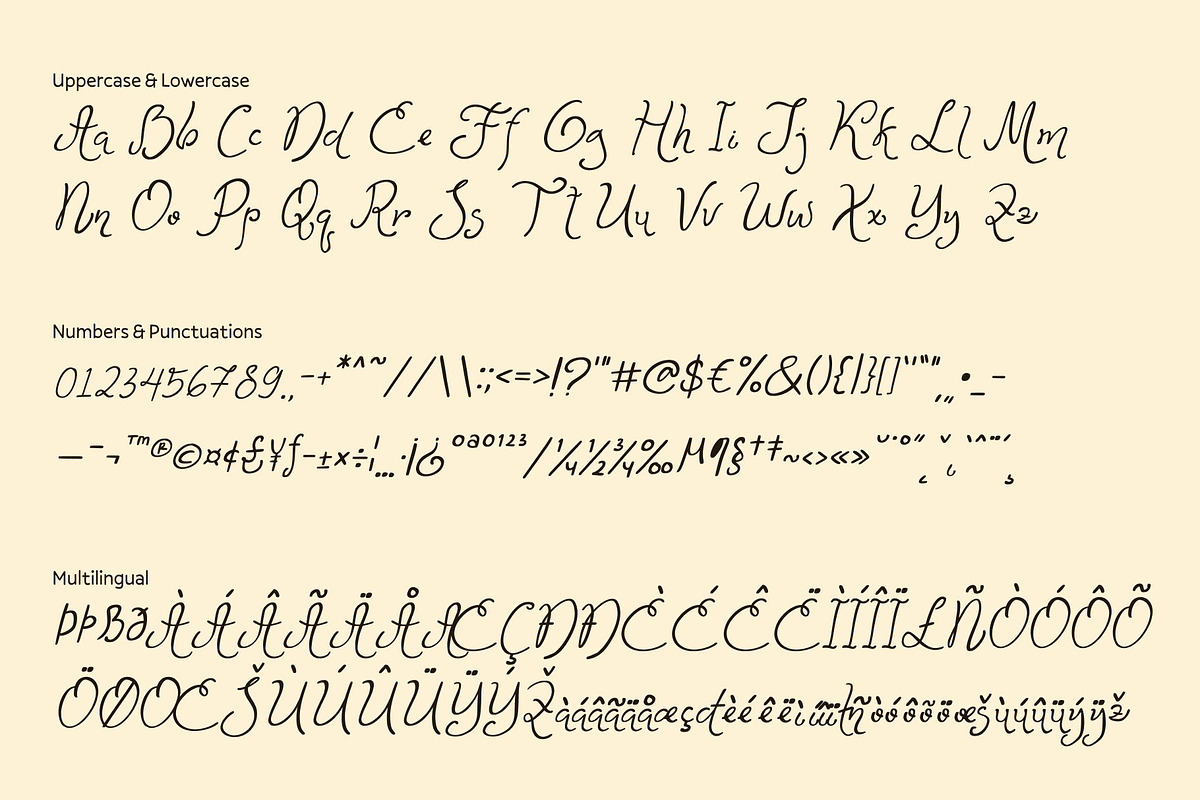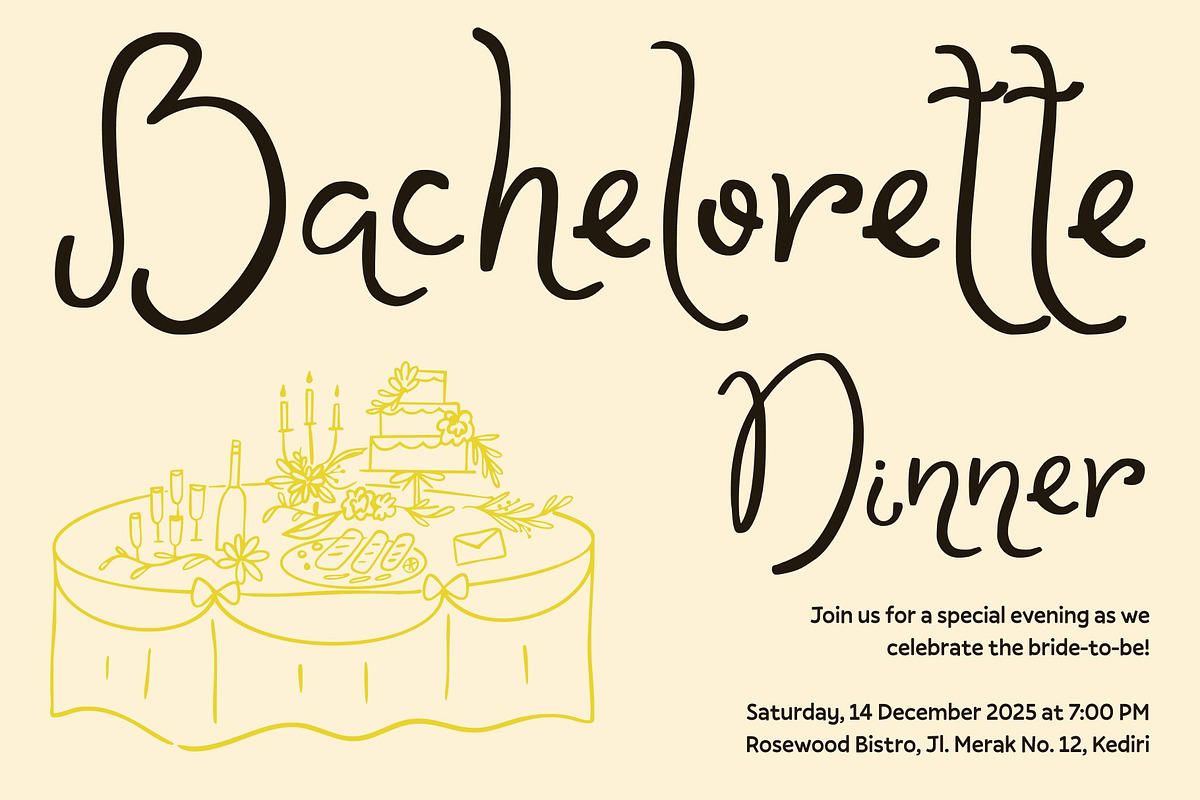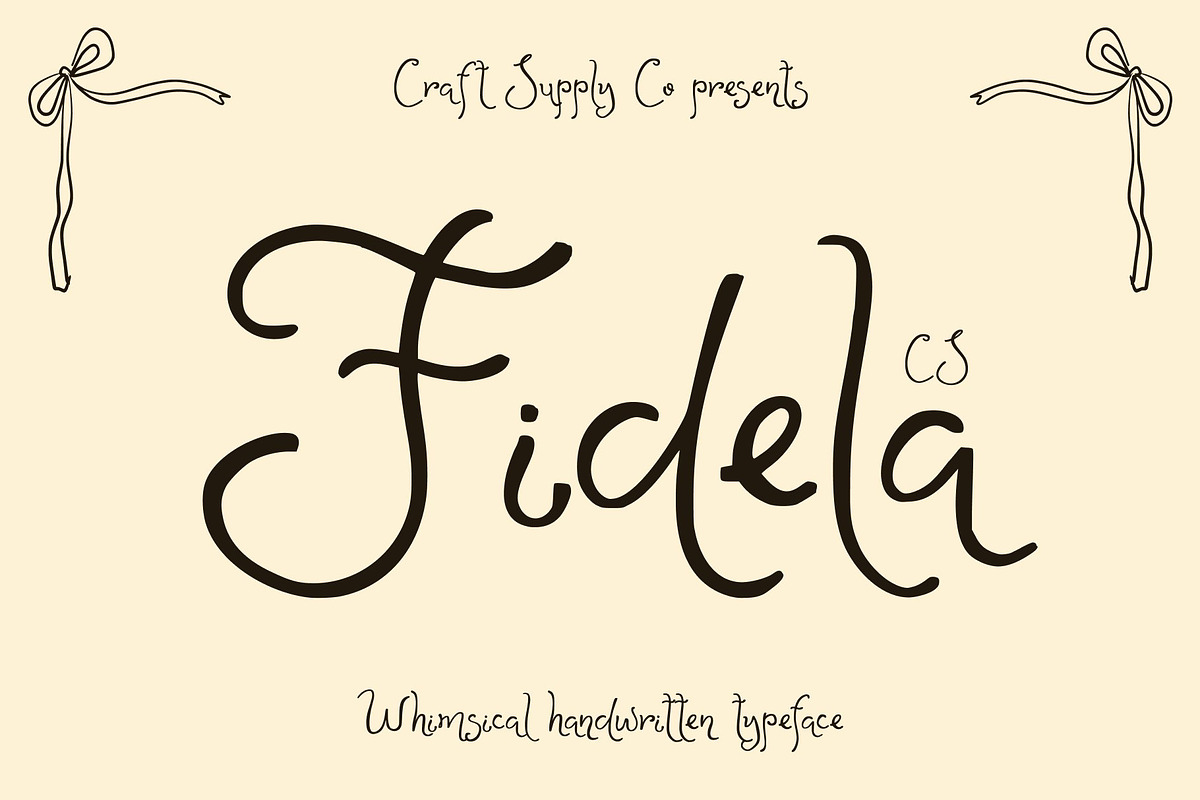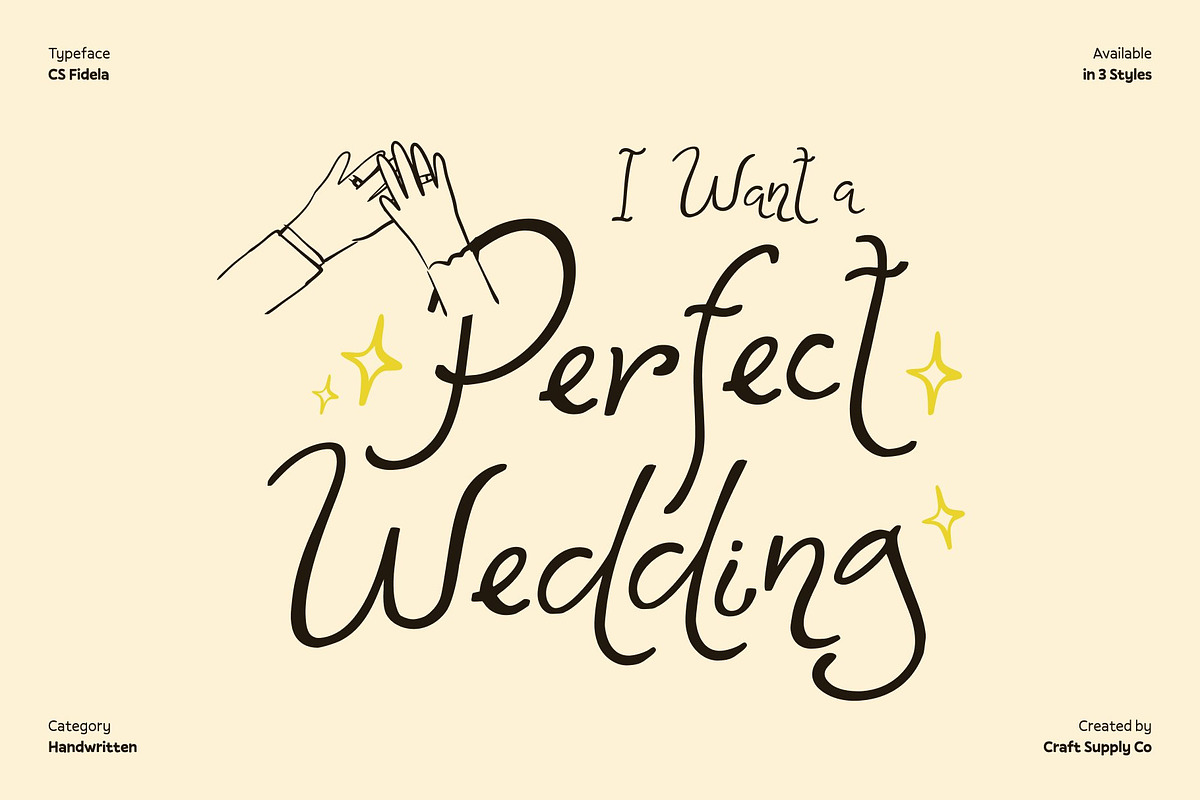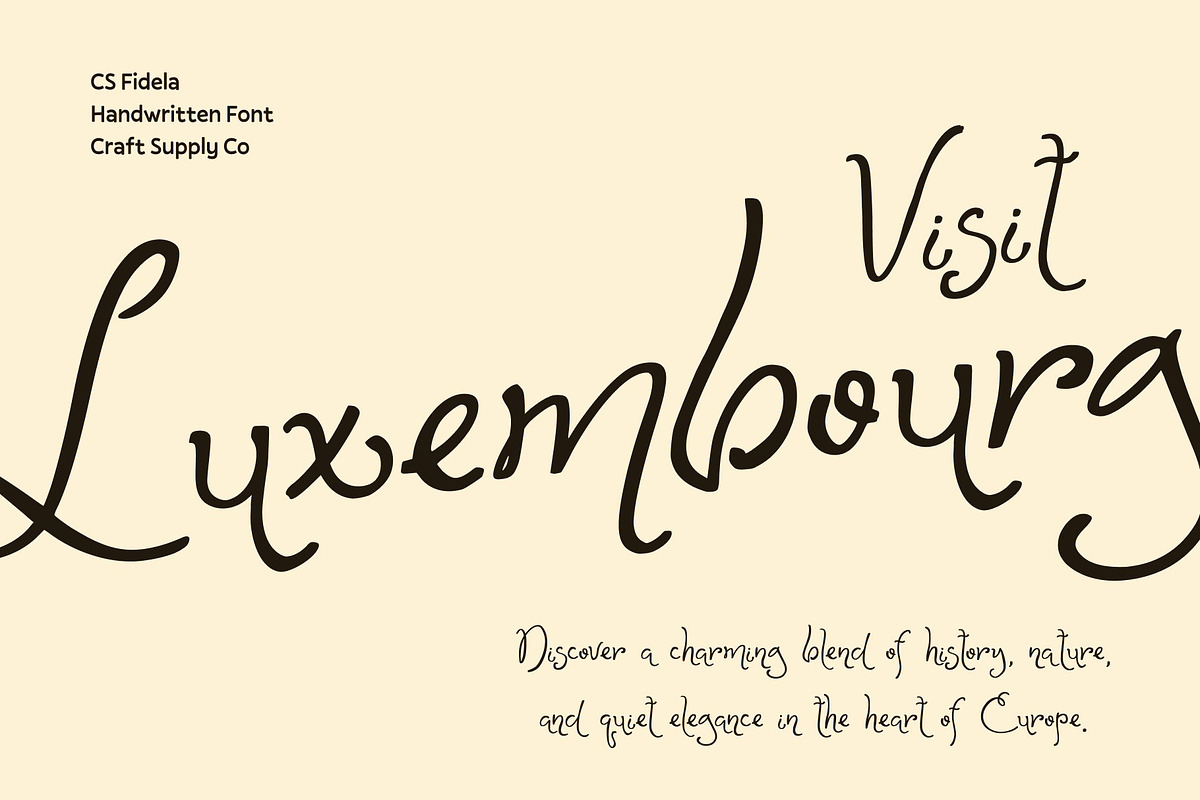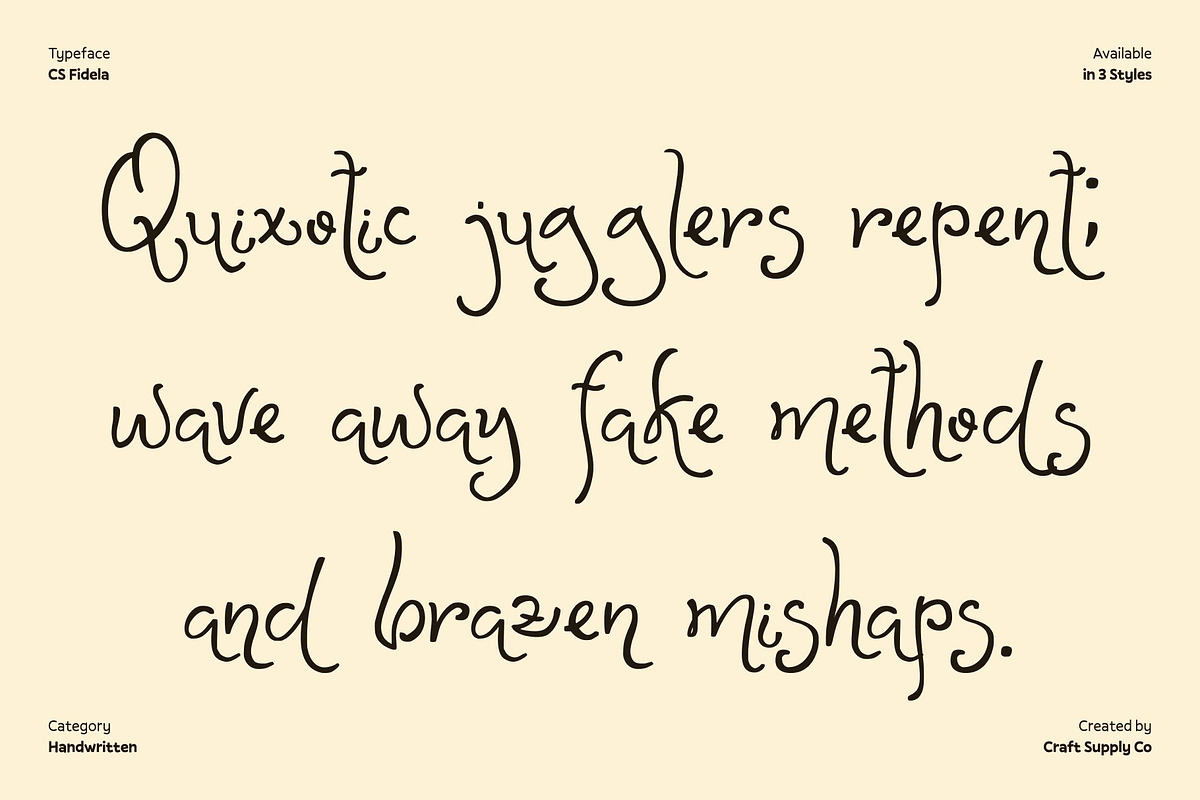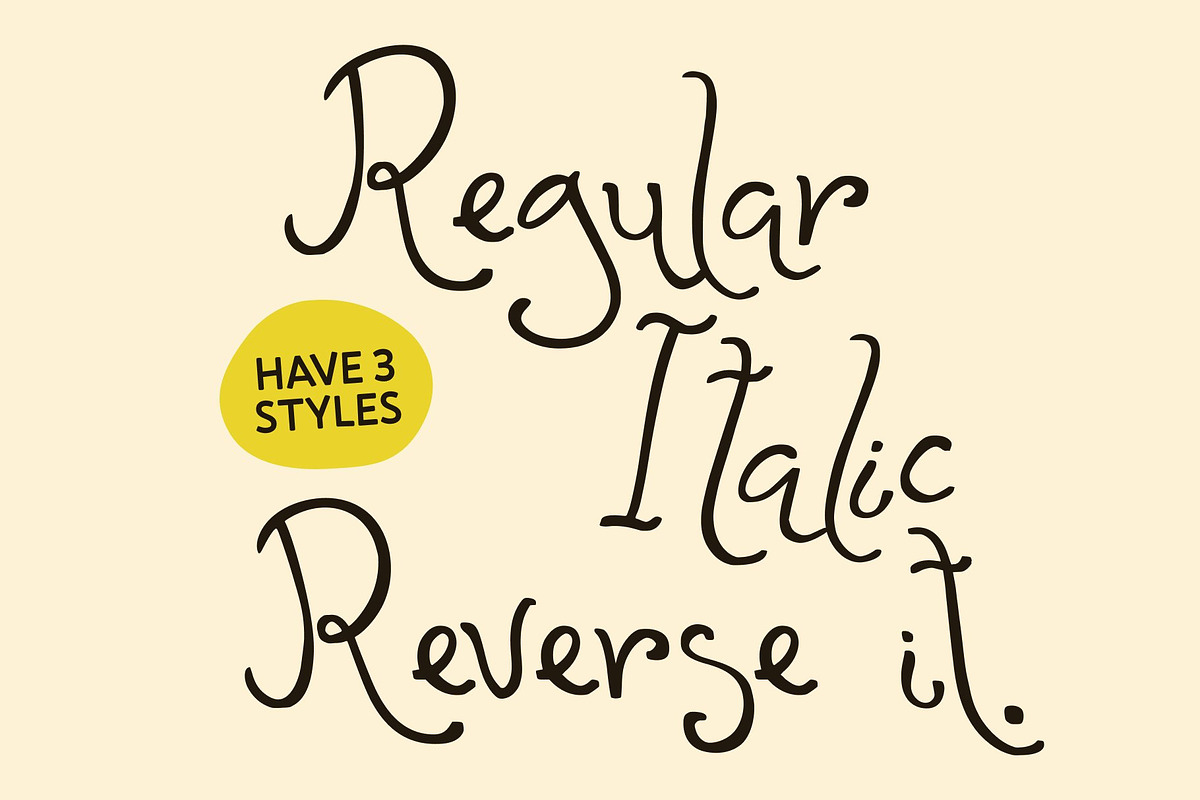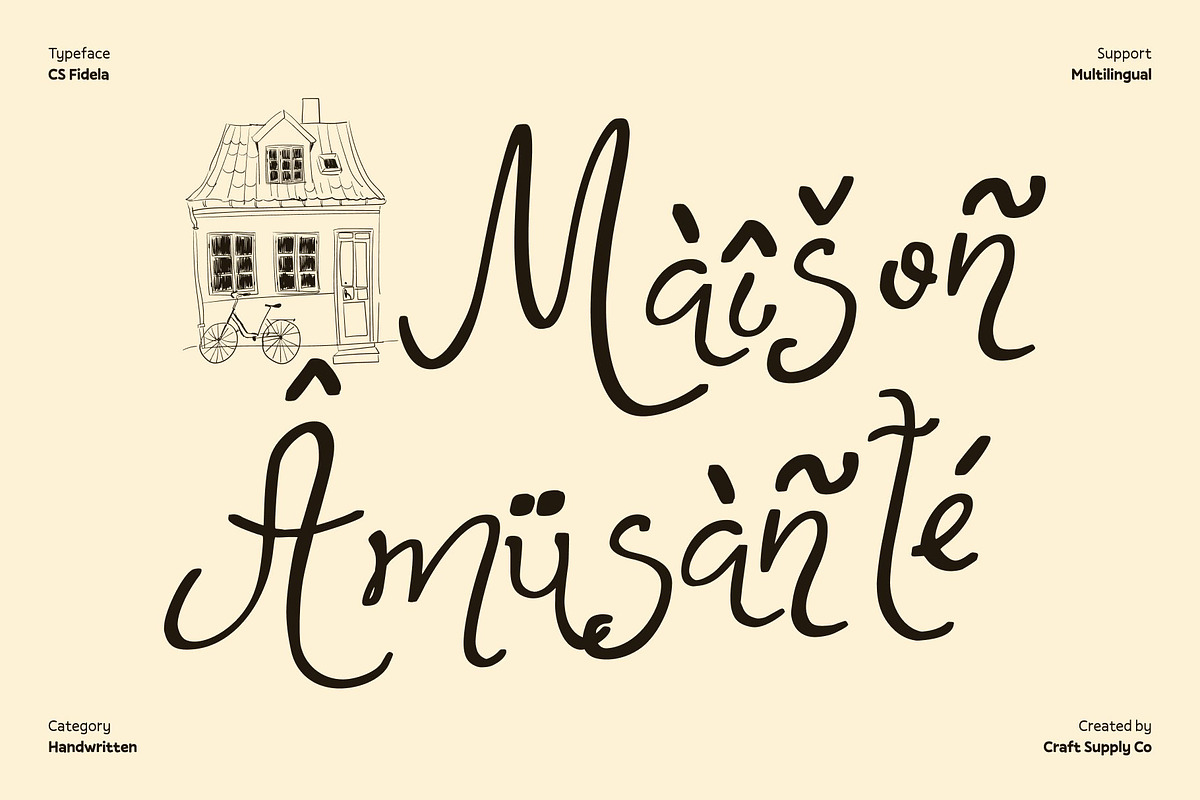
CS Fidela – Whimsical Font
CS Fidela – Whimsical Script Font Full of Cheer and Charm
Playful Script Style with Lighthearted Energy This is a whimsical script font designed to bring joy, movement, and creativity into every stroke. Its playful curves flow effortlessly, creating a lively handwritten feel that instantly brightens any layout. This font’s chic yet carefree styling makes it a perfect choice for projects that need personality, friendliness, and imaginative appeal.
Graceful Curves with a Creative Touch The beauty of this font lies in its expressive shapes. Each letter is crafted with smooth curves and gentle loops, giving the font a distinctive rhythm that feels natural and spontaneous. These characteristics allow your text to feel alive on the page, creating an inviting visual experience.
Perfect for Festive and Colorful Designs Shines in projects where joy and celebration take center stage. From birthday invitations to party posters, this font instantly sets a cheerful tone. Its whimsical structure blends seamlessly with vibrant palettes, decorative illustrations, and fun layouts.
Versatile, Charming, and Creative While lighthearted in personality, this font is versatile enough for a range of creative purposes. Use it for logotypes, quote designs, packaging, social media graphics, or fantasy-inspired artworks. Its unique blend of chic elegance and spirited playfulness ensures your message is both memorable and visually engaging.